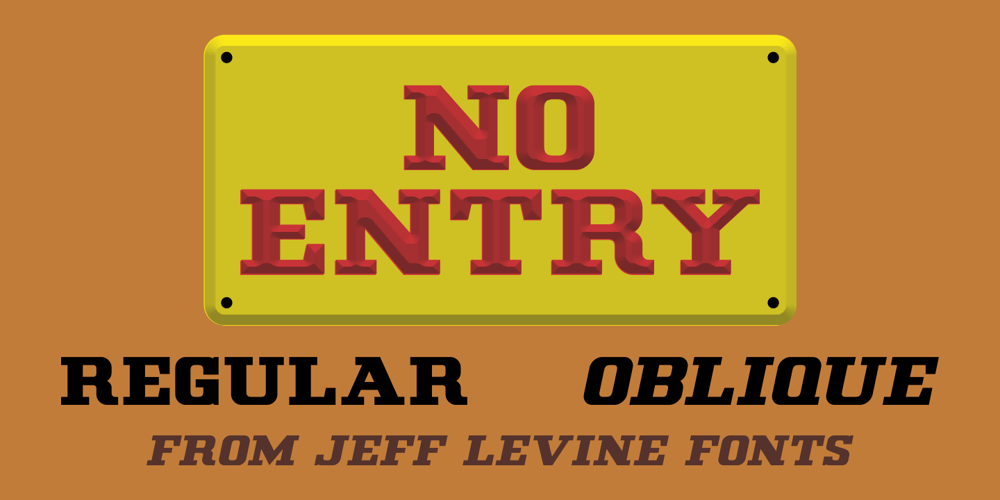
No Entry JNL Font Family was designed by Jeff Levine and published by Jeff Levine. No Entry JNL contains 2 styles and family package options. The hand lettered titles and credits from the 1958 war film “The Young Lions” command your attention with a bold block slab serif type style.This design has been digitally recreated as No Entry JNL, which is available in both regular and oblique versions.